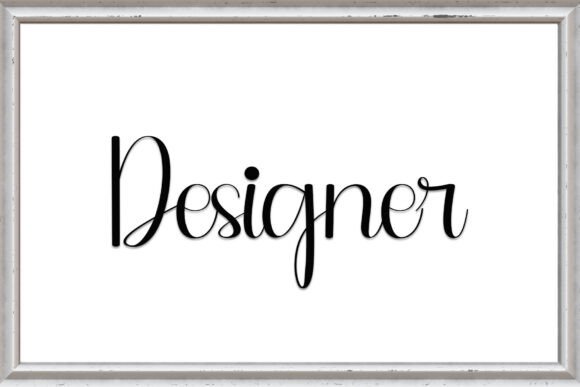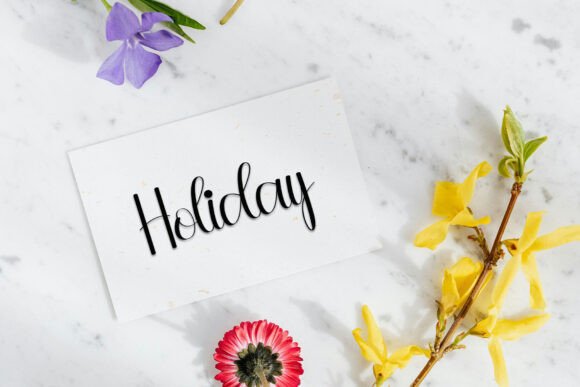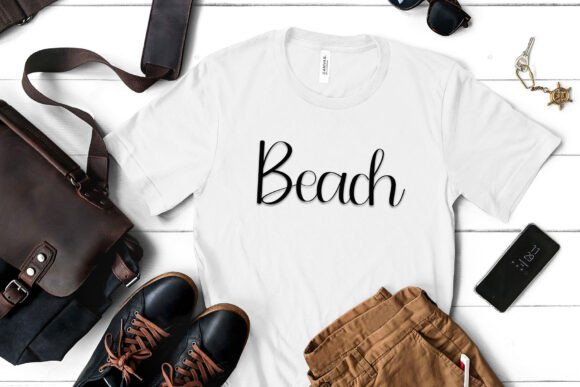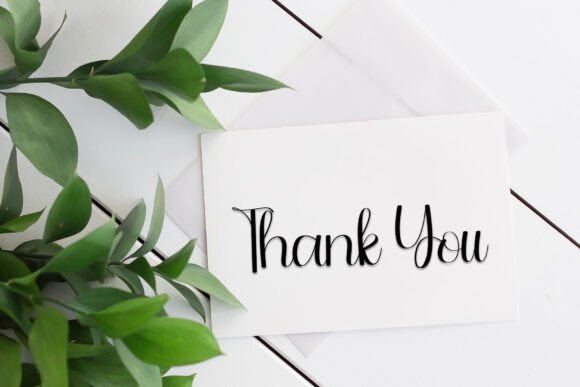
The Funky Font That Stole My Heart: A Designer’s Delight
I’ll never forget the moment I stumbled upon the Funky font. I was working on a project for a client who wanted a elegant yet playful touch, and I was on a mission to find the perfect match. Hours of scrolling through font libraries, testing, and tweaking had taken a toll on my creative energy. That’s when I saw it – Funky, a beautiful handwritten font that exuded an elegant touch. It was love at first sight! ✨
As a designer, I know that no font is perfect, but Funky comes close. Here’s what I love about it:
- ✅ Elegant and refined, perfect for projects that require a touch of sophistication
- ✨ Incredibly distinct and timeless style that sets it apart from other fonts
- 💫 Highly versatile, suitable for a wide range of projects, from branding to invitations
- 👍 Easy to read, even in smaller sizes
Now, no font is without its quirks, and Funky is no exception. A few things to keep in mind:
- 🤔 Some characters may appear a bit narrow, so be mindful of spacing
- ⚠️ Limited availability of certain OpenType features, but more on that later
The Story Behind Funky: A Glimpse into Its Design Inspiration
While the true story behind Funky’s creation remains a mystery, it’s easy to imagine a designer pouring their heart and soul into crafting such a beautiful font. Perhaps it was inspired by the flowing lines of handwritten calligraphy or the elegance of refined typography. Whatever its origins, Funky is undoubtedly a masterpiece.
| Is Funky suitable for body text? | While Funky is beautiful, it’s best suited for headings and titles due to its elegant, yet somewhat ornate nature. |